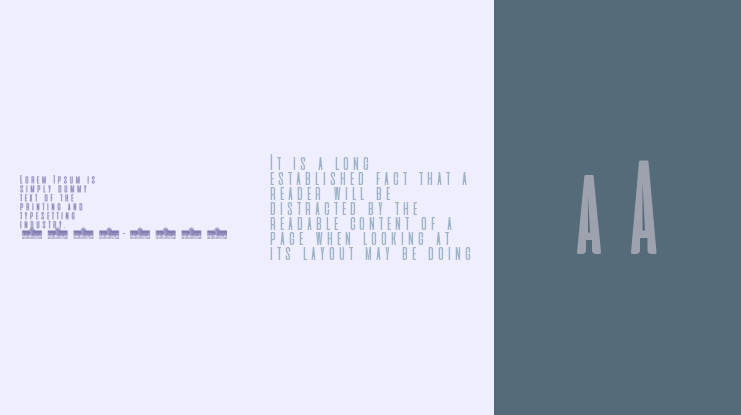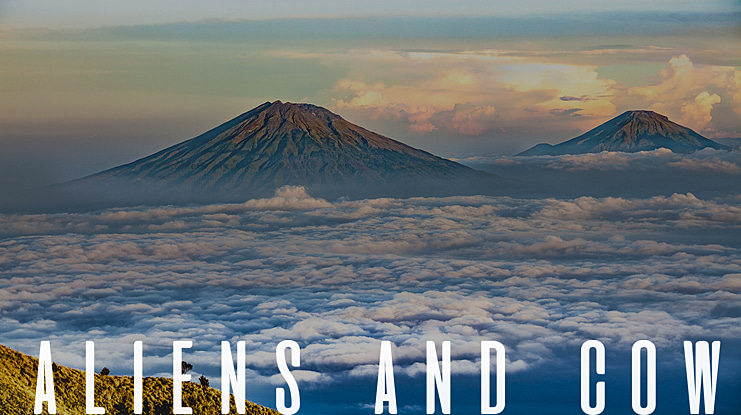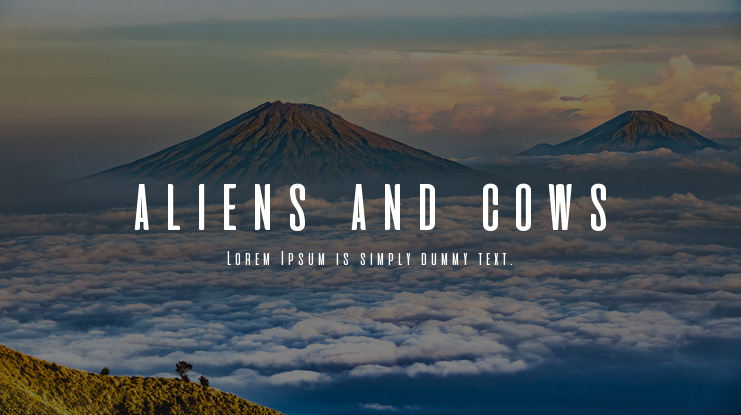
aliens and cows Font
Francesco Canovaro
Designed by Francesco Canovaro, Aliens and Cows is an ultracondensed display typeface. It comes in one weights and features an extended character set with support for European languages, and contextual alternate for some characters.